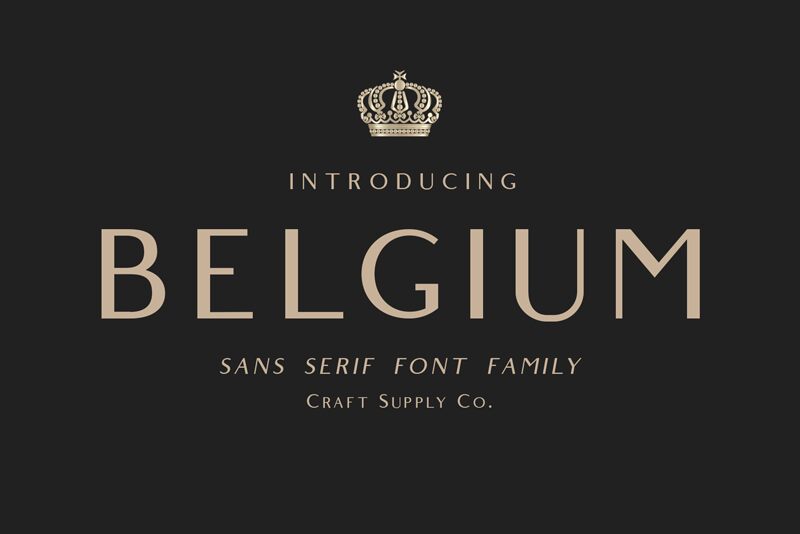
Belgium Regular
Belgium font, crafted by Craft Supply Co., is a sans serif typeface that stands out with its clean, modern lines and balanced proportions. This font captures attention through its elegant simplicity and subtle sophistication. The unique design of Belgium font enhances readability while conveying a sense of refinement, making it perfect for both digital and print projects.
Ideal for branding, logos, editorial design, and web development, Belgium font offers versatility across various creative applications. Its distinct style complements minimalist aesthetics as well as bold graphic elements.